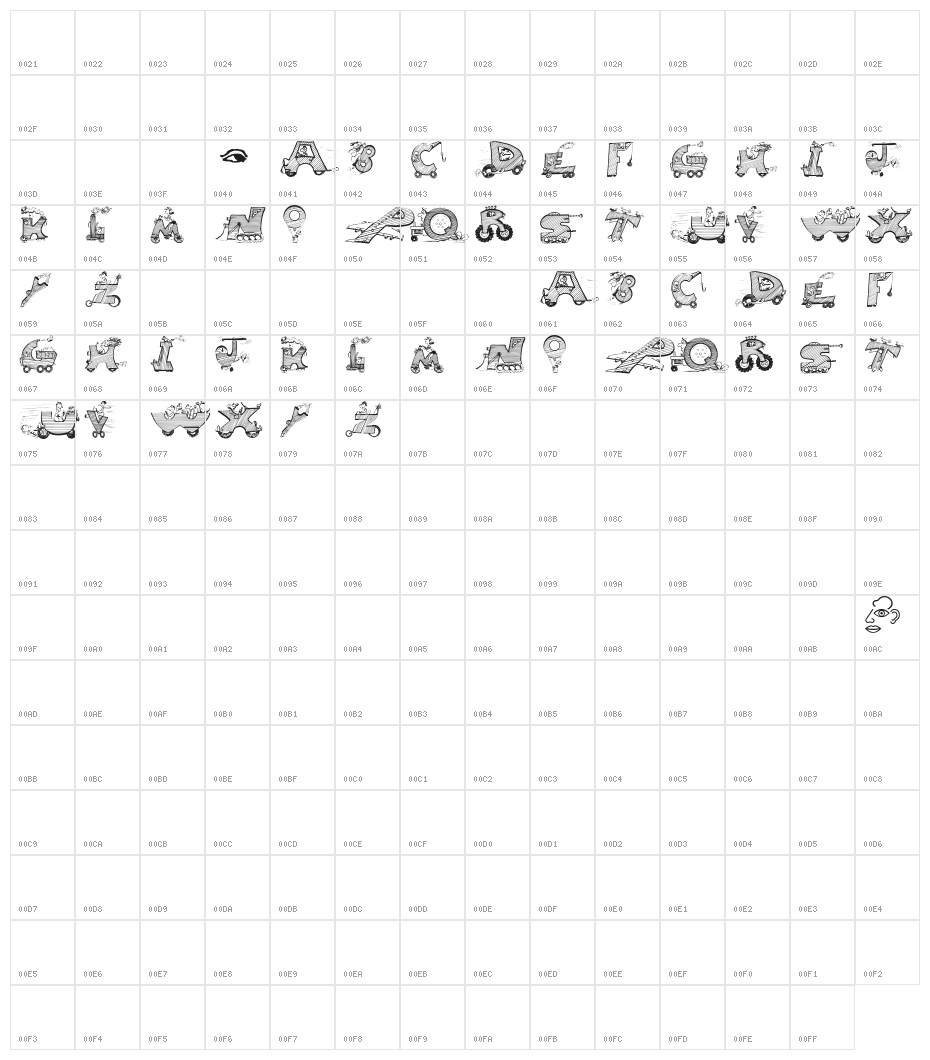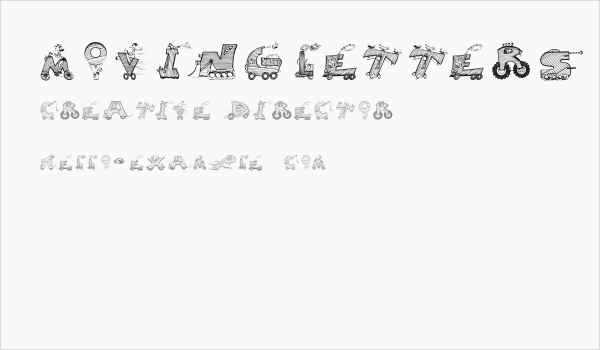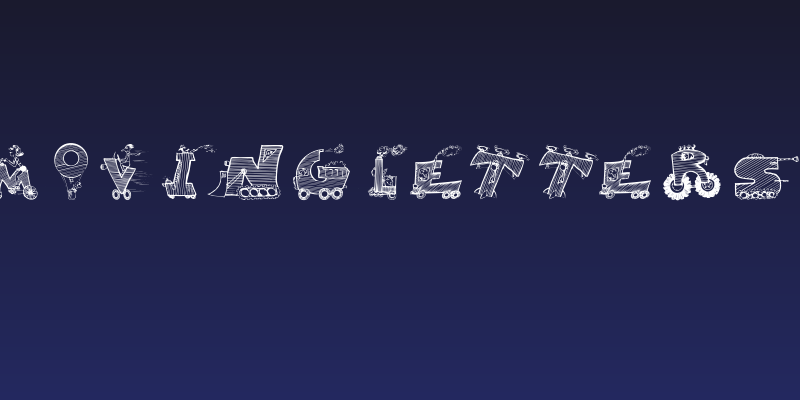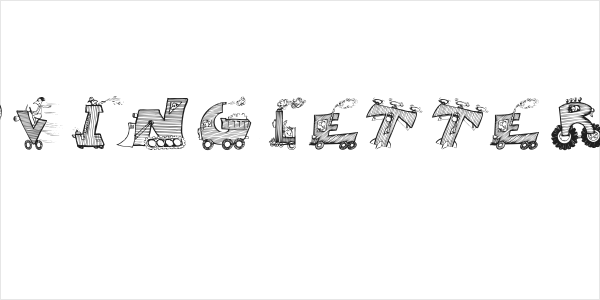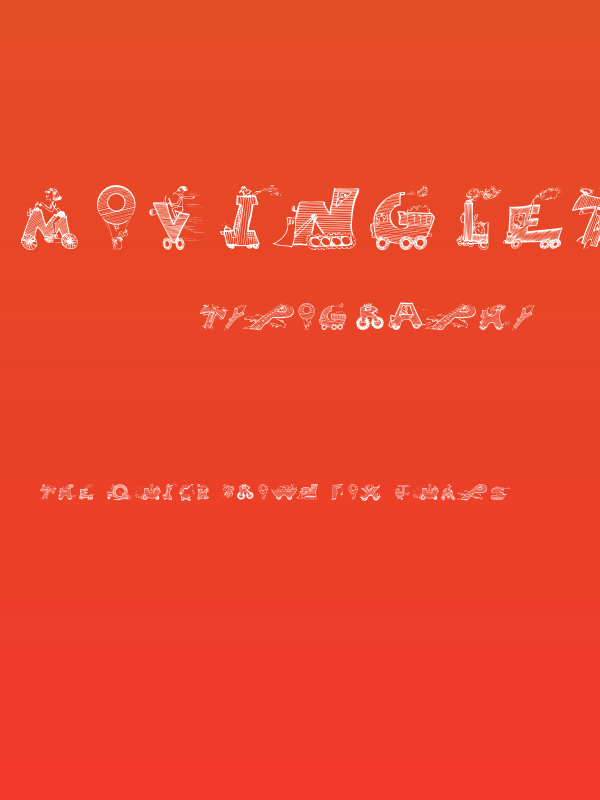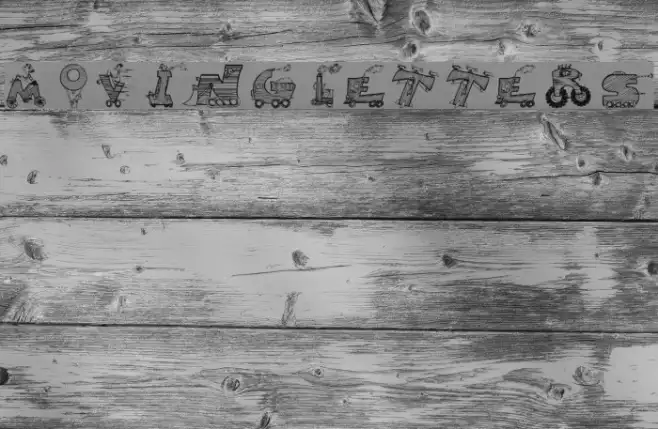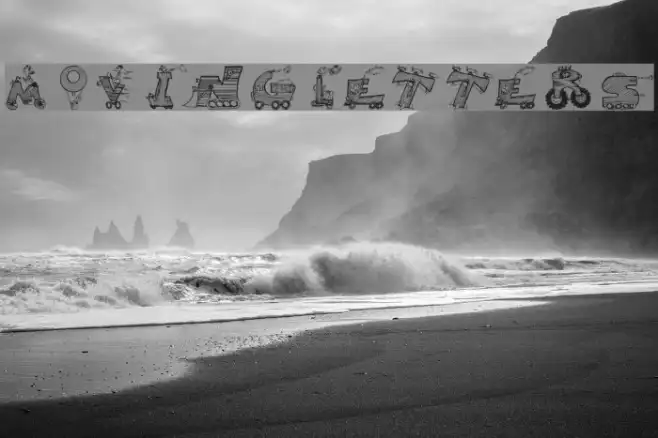
MovingLetters Font
MovingLetters Description
This playful and imaginative font features letters designed as various vehicles and modes of transportation. Each character is intricately illustrated, incorporating elements like wheels, engines, and passengers, creating a dynamic and whimsical appearance. The font captures a sense of movement and adventure, making it ideal for creative projects. The detailed illustrations within each letter add a unique charm, making it stand out in any design. The font's artistic style is both engaging and visually appealing, perfect for capturing attention and sparking curiosity.